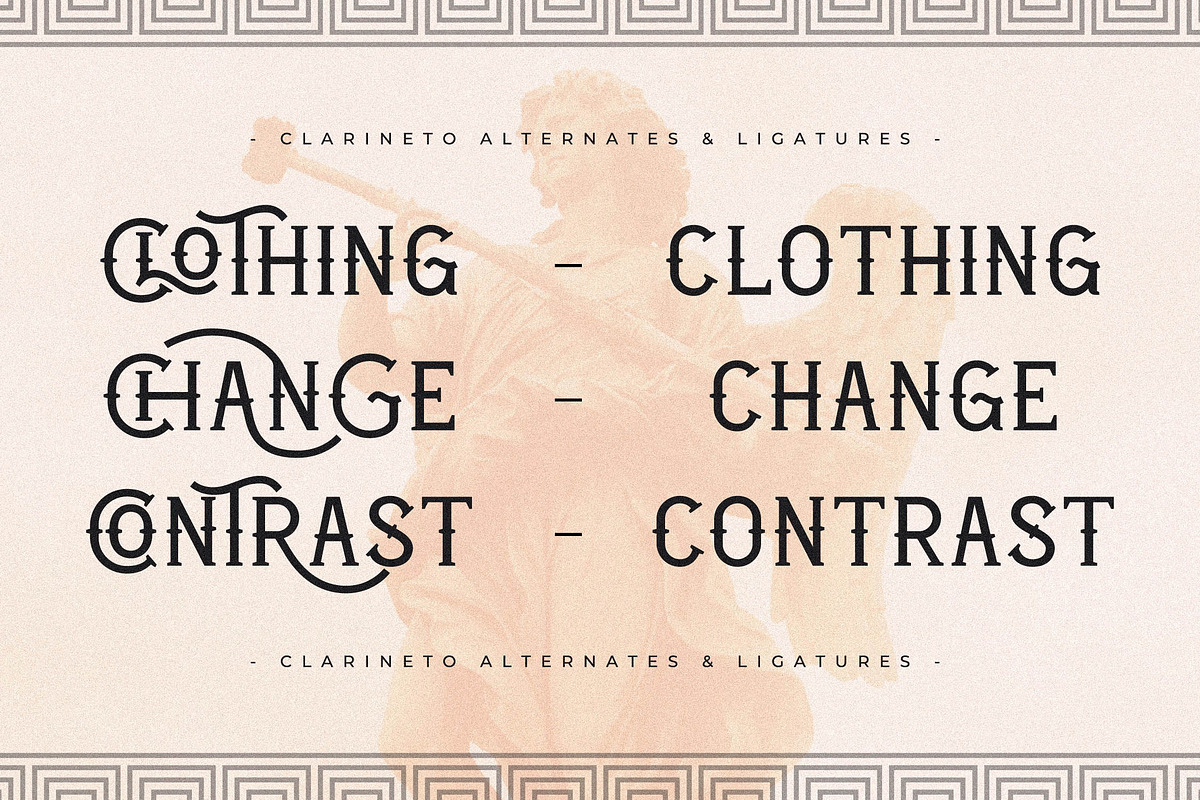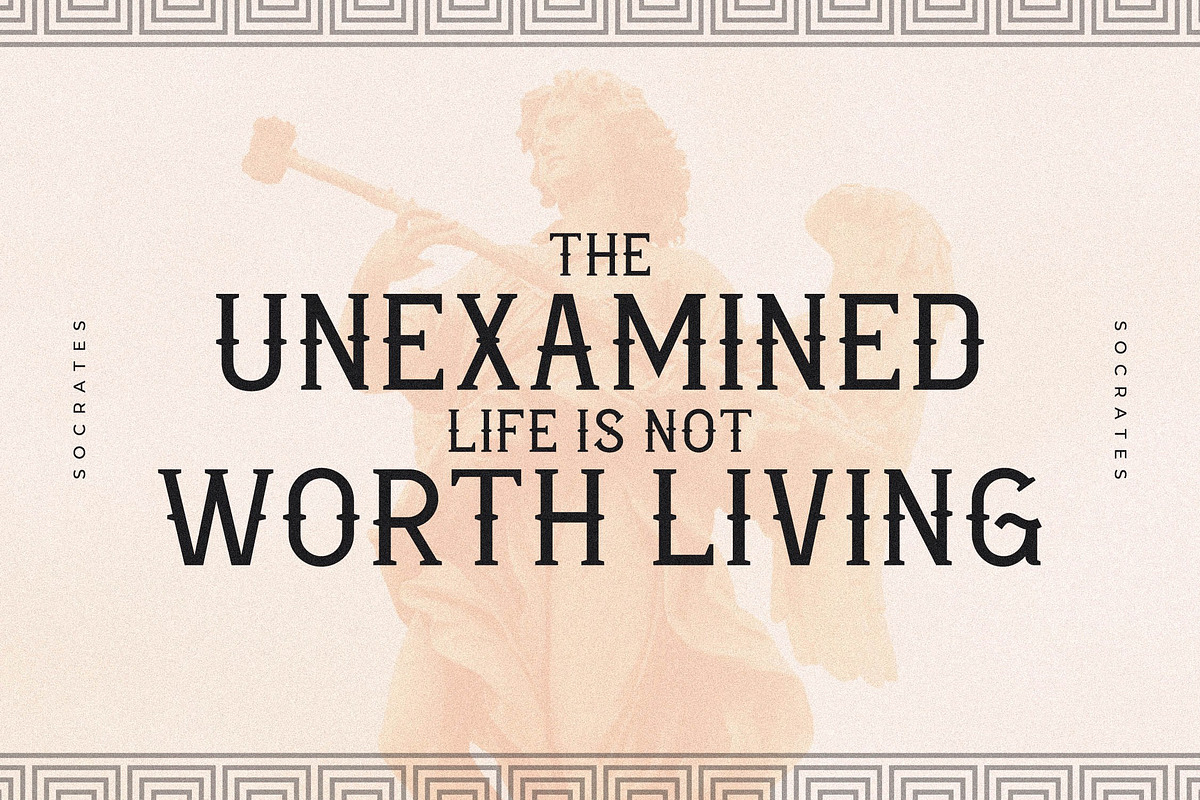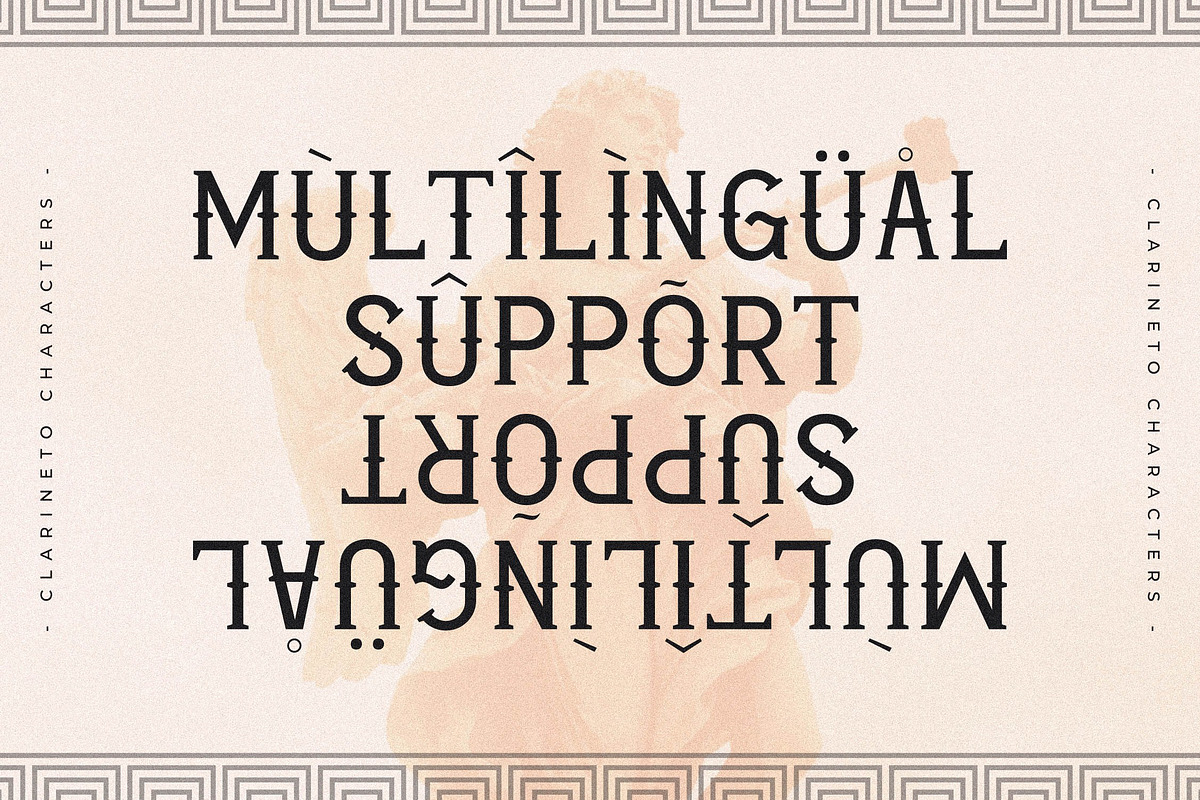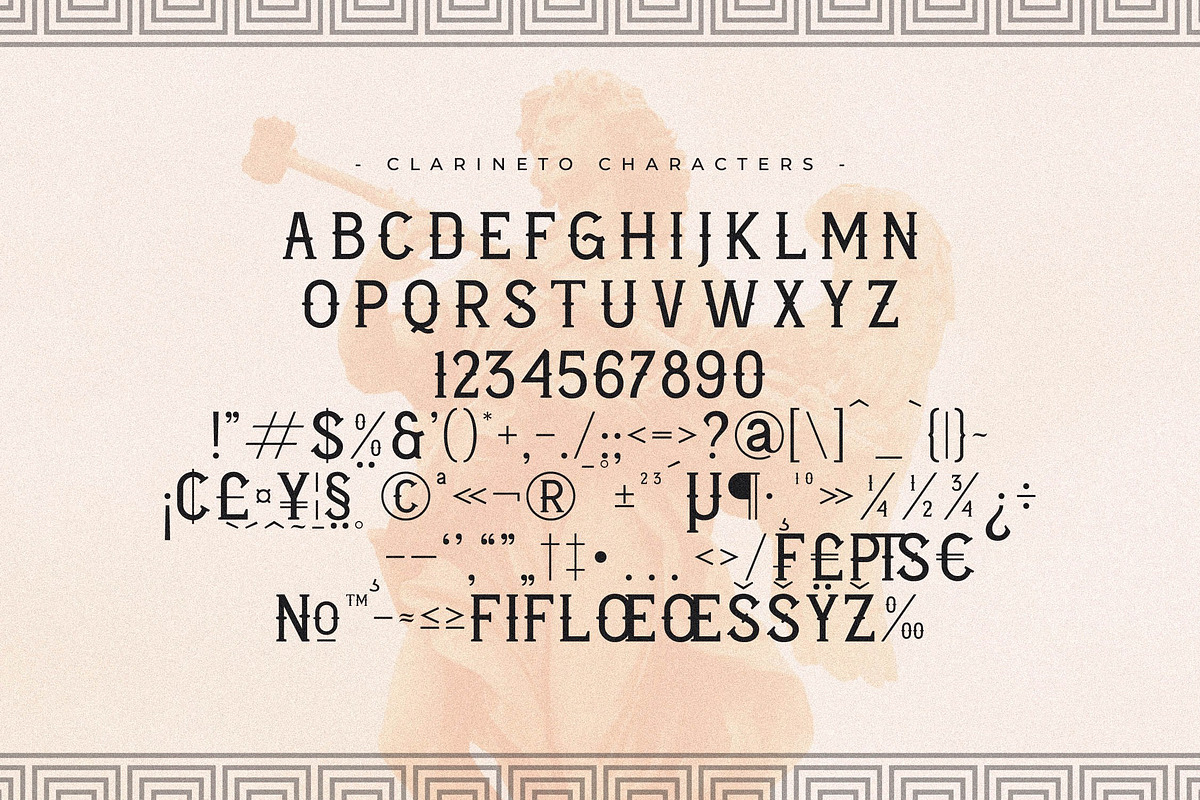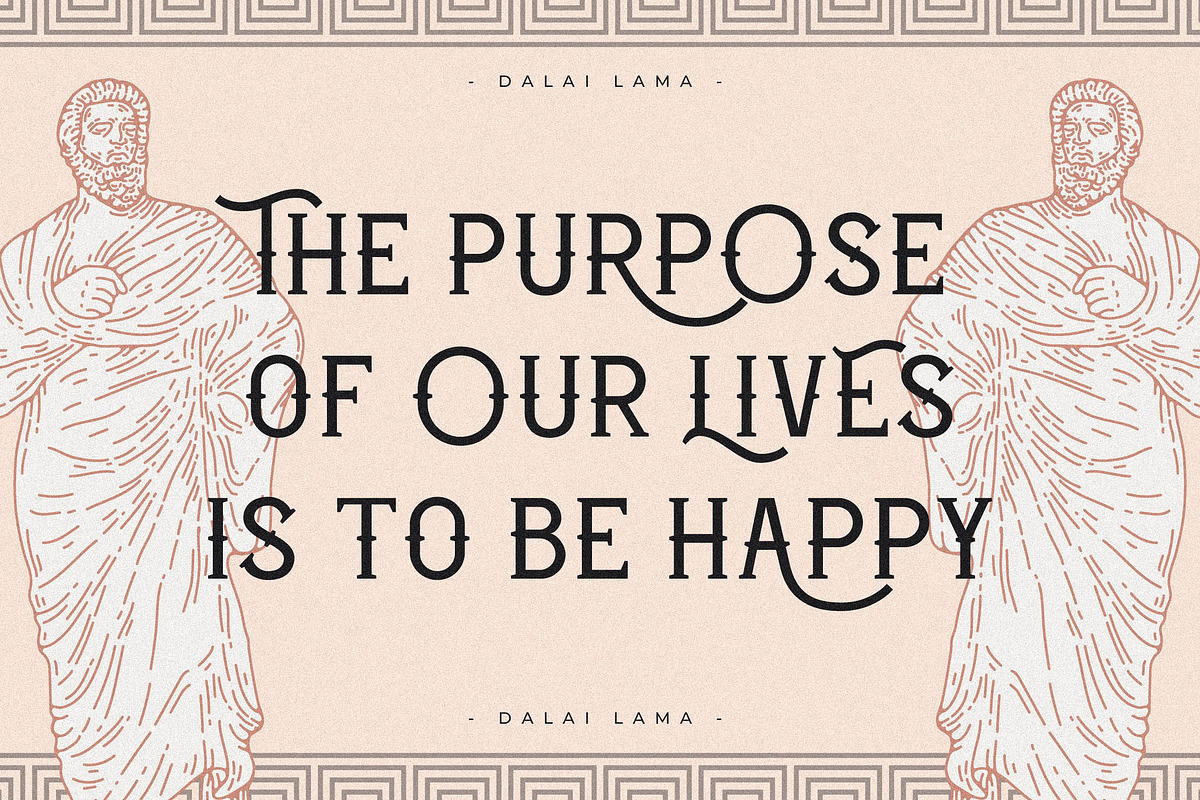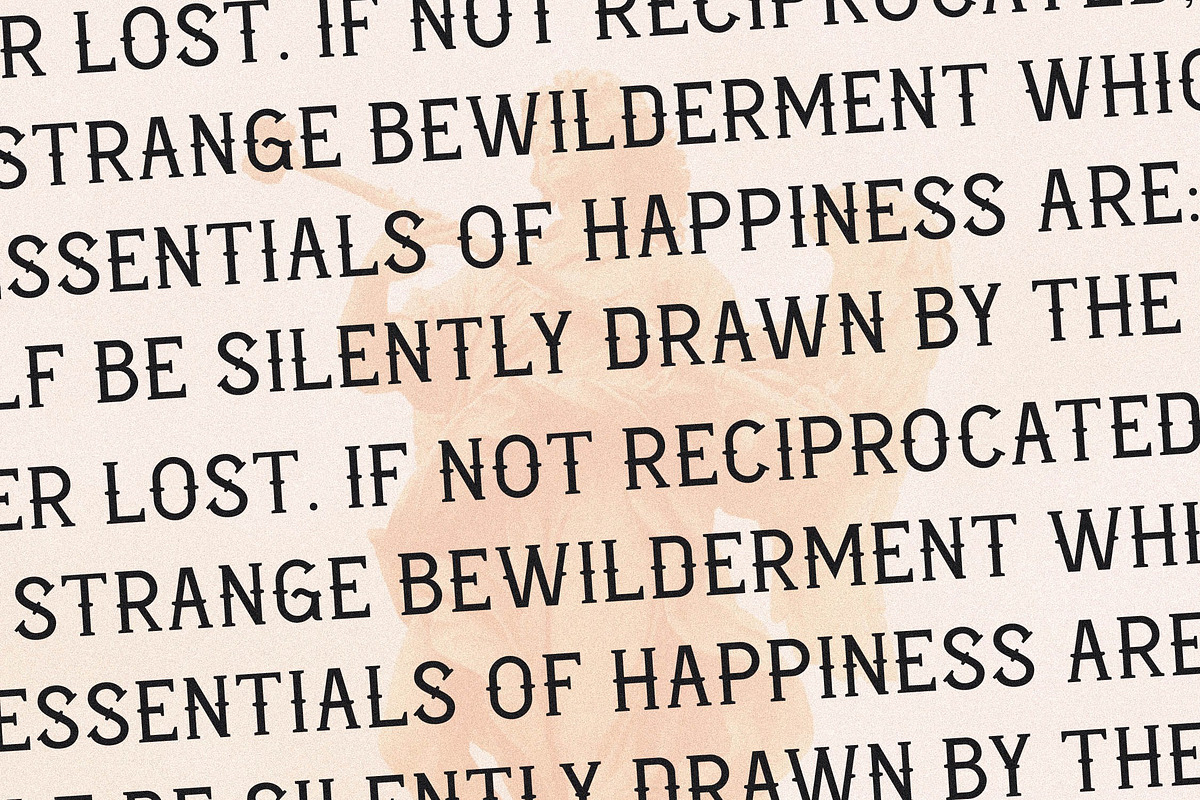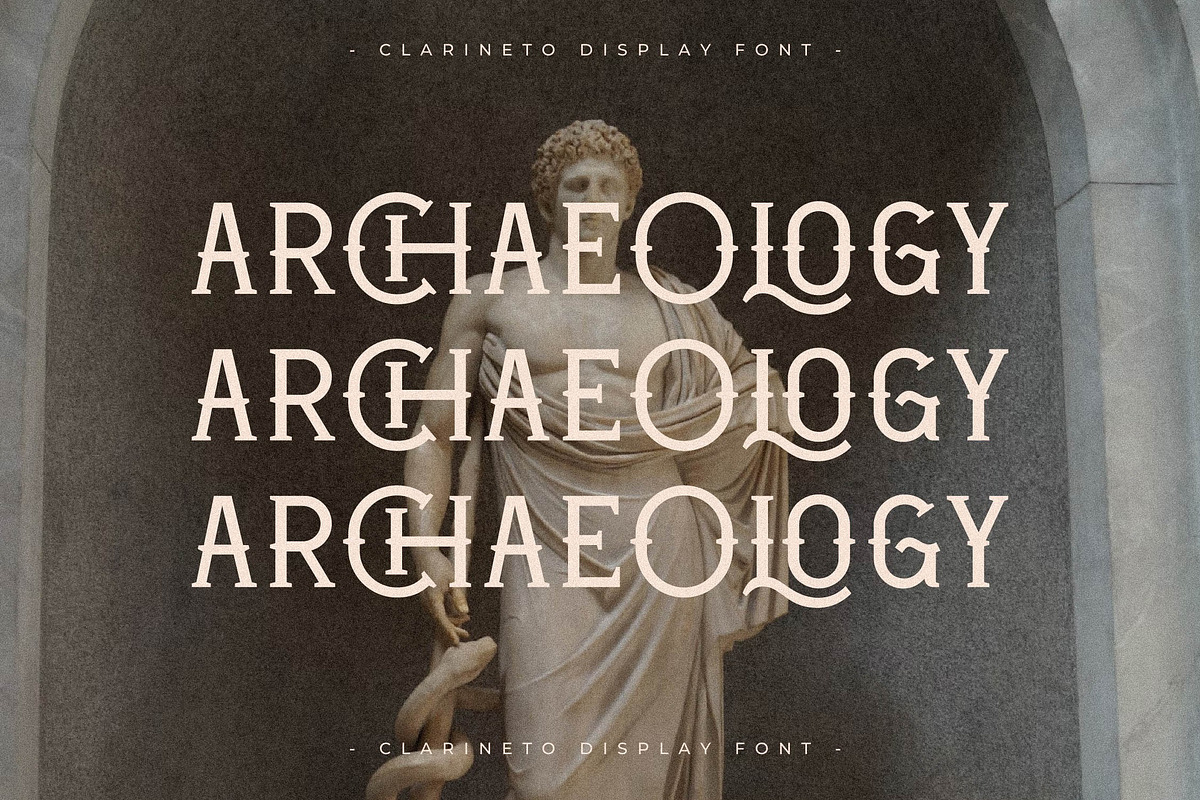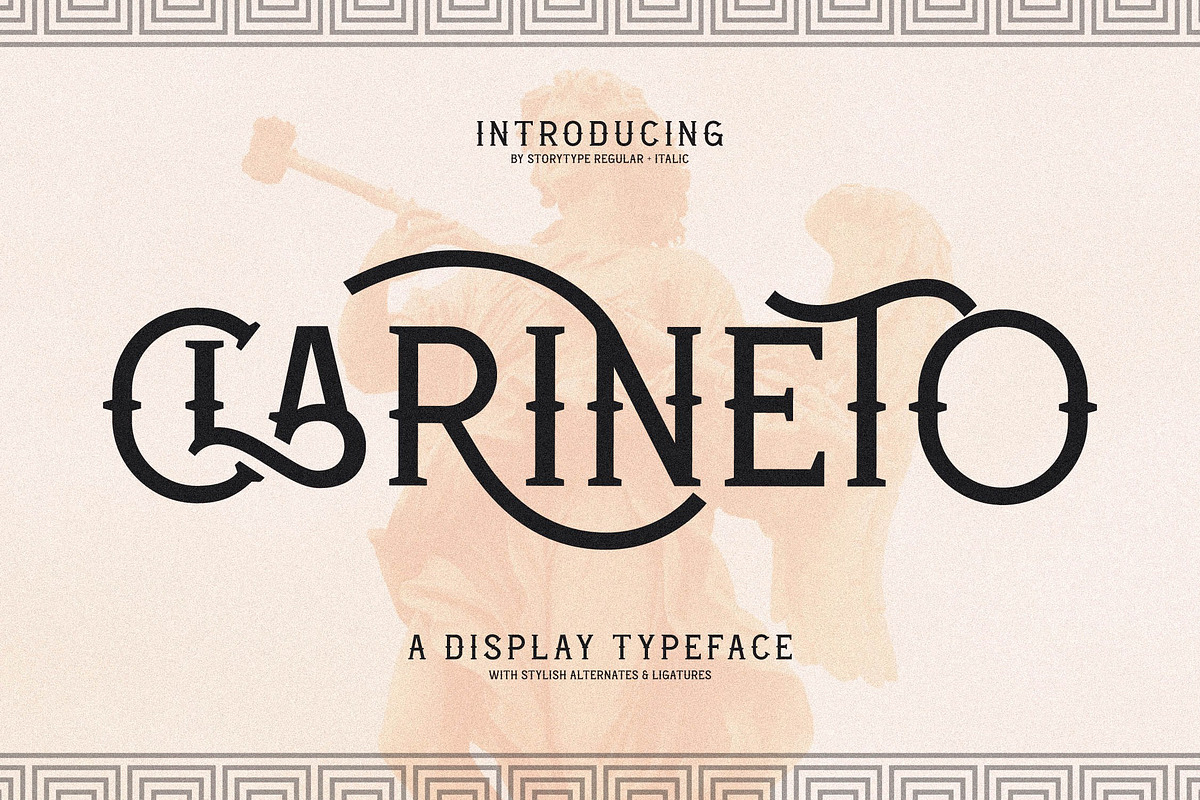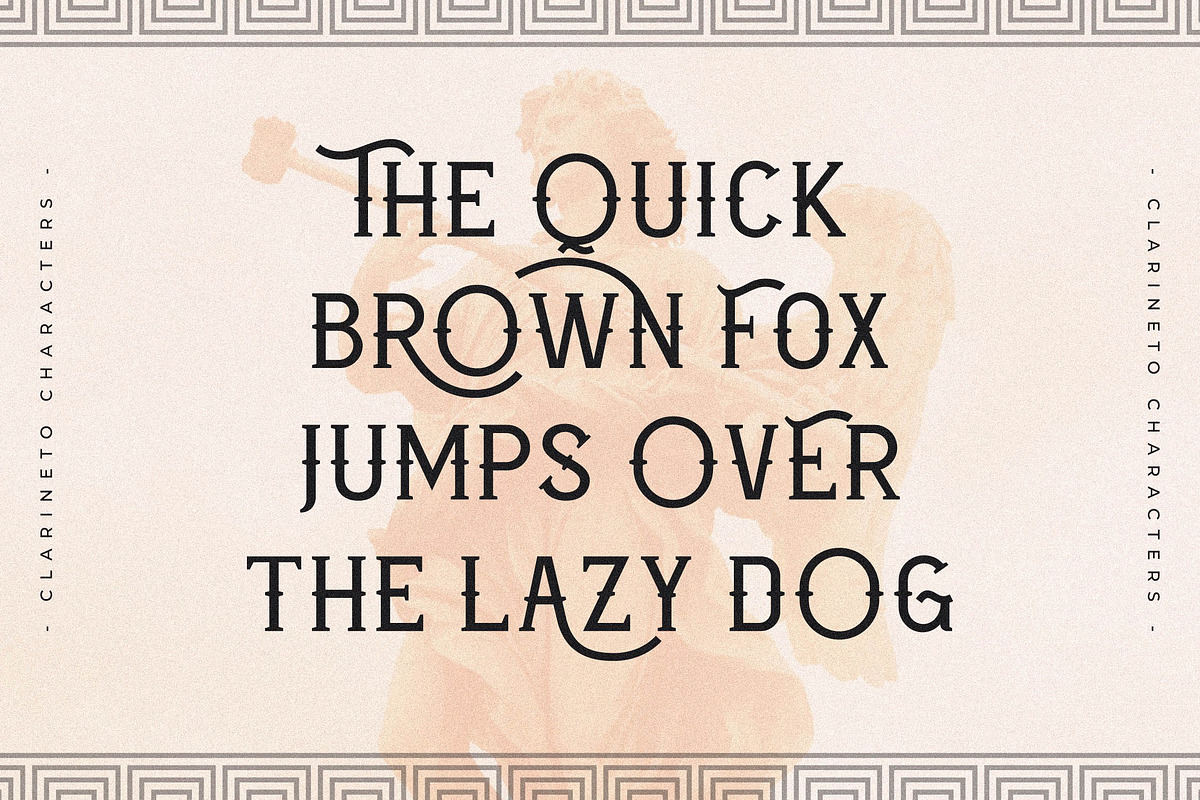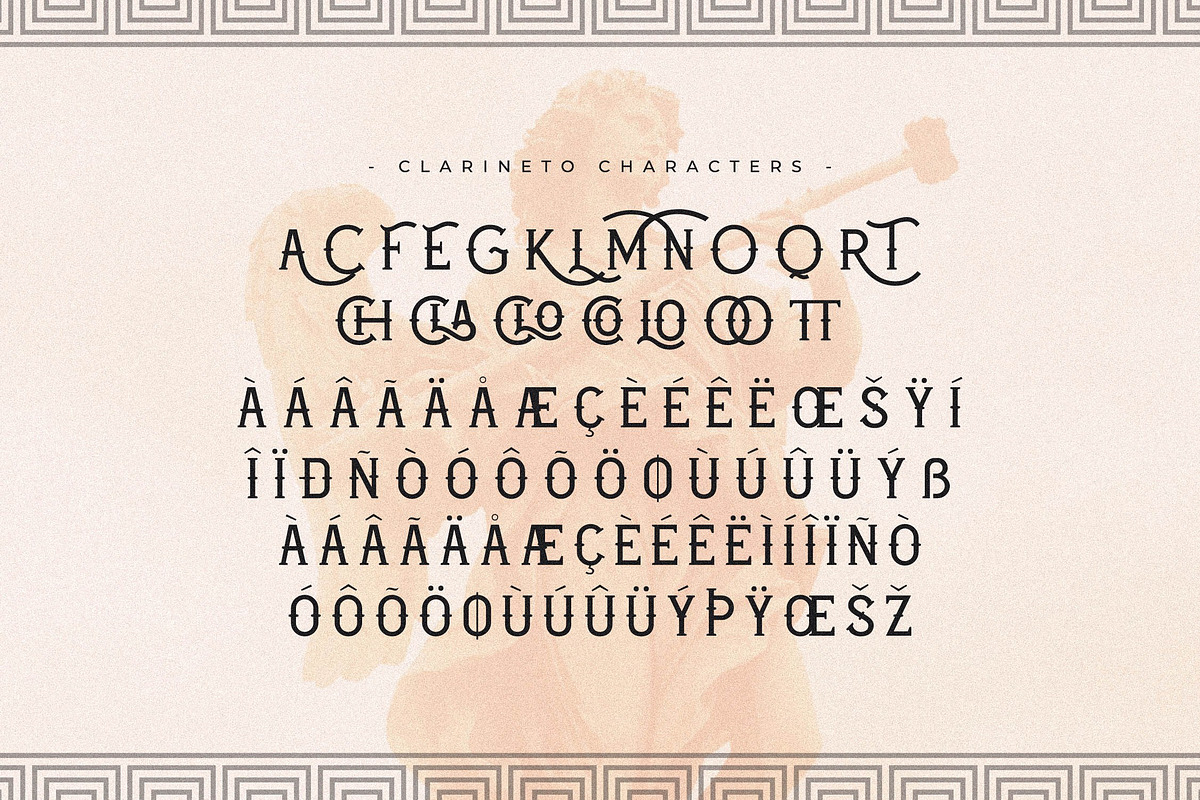
Clarineto A Display Typeface Font
Proudly present CLARINETO Typeface , created by Storytype, A serif modern and classic typeface that has own unique style & modern look. This typeface is perfect for an elegant & luxury logo, book or movie title design, fashion brand, magazine, clothes, lettering, quotes, and so much more.